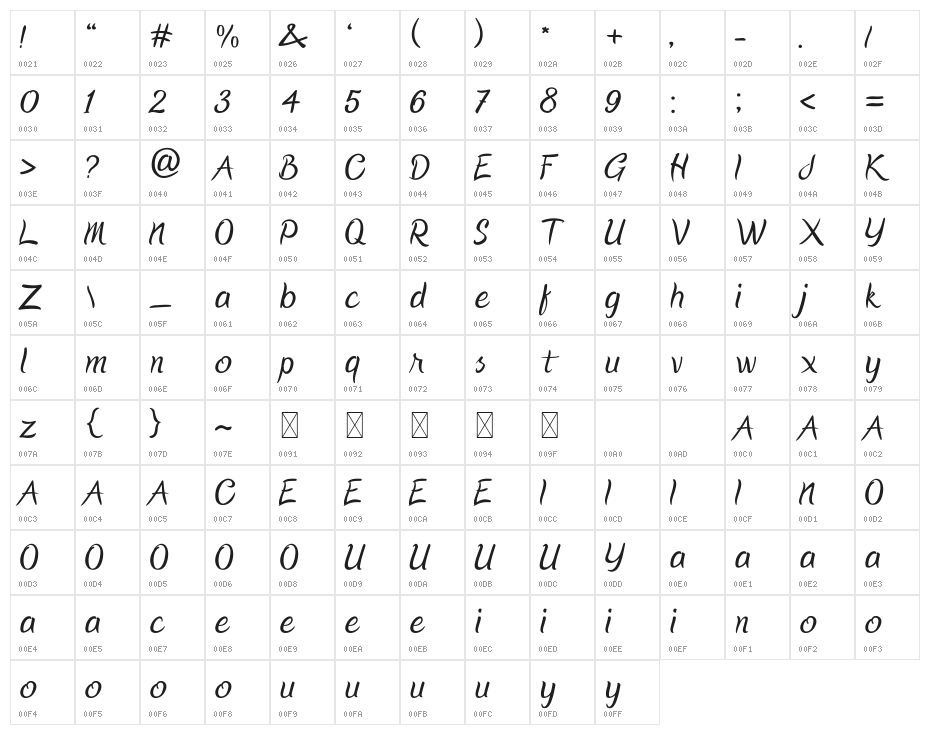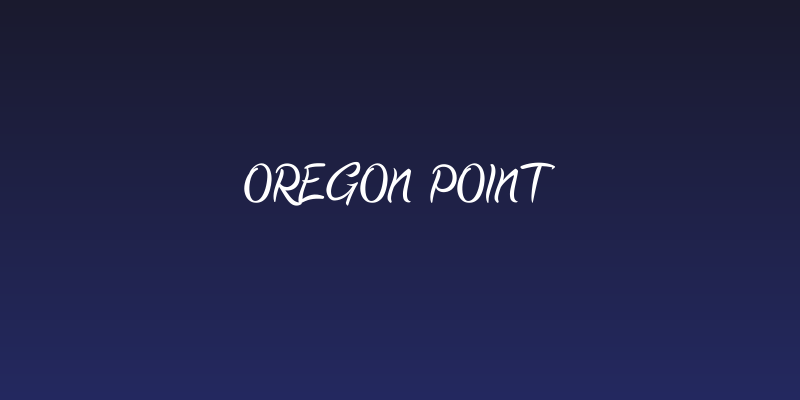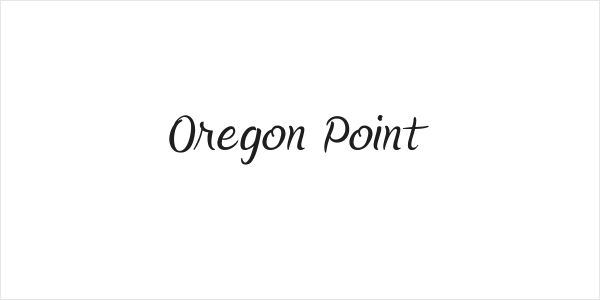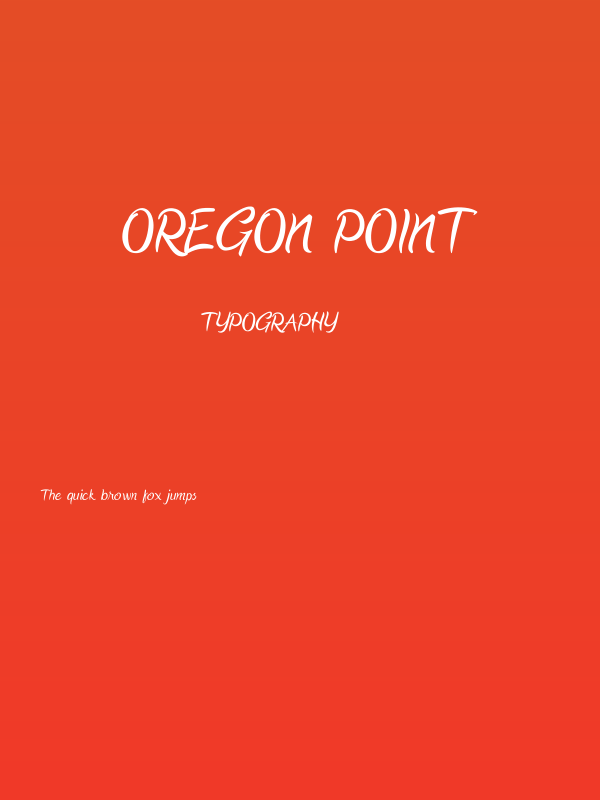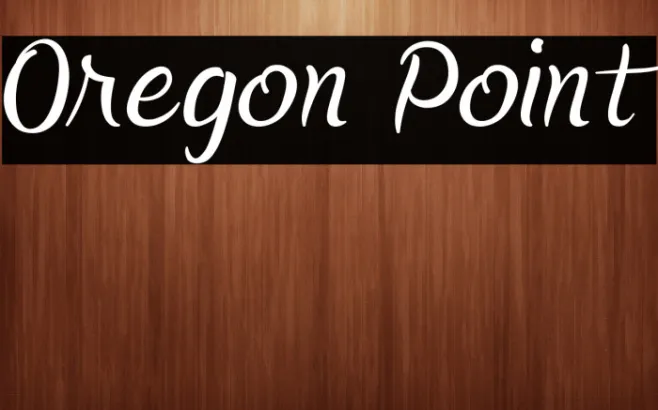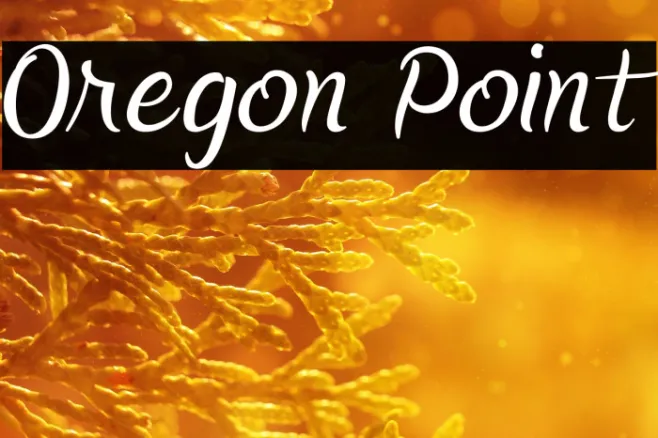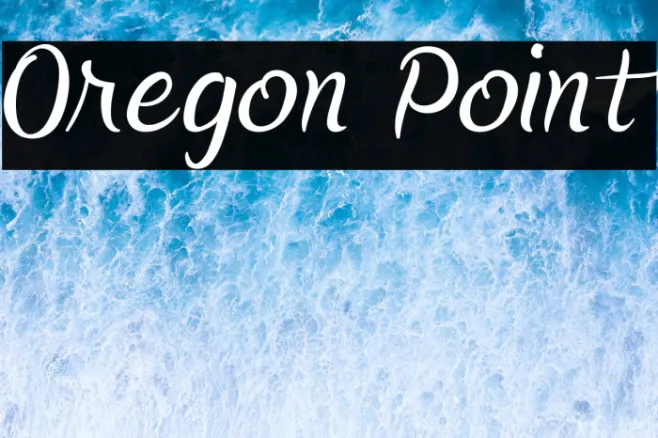
Oregon Point Font
Oregon Point Description
This font features a dynamic and flowing script style, characterized by its elegant, cursive letterforms. The uppercase letters are slightly more formal, with a consistent slant and smooth curves that give a sense of movement and grace. The lowercase letters maintain this fluidity, with some characters featuring loops and swashes that add to the overall aesthetic. The numerals are designed to match the script style, with rounded edges and a slight slant. Special characters are integrated seamlessly, maintaining the font's cohesive look. This font is ideal for projects that require a touch of elegance and sophistication, such as invitations, branding, and decorative text.